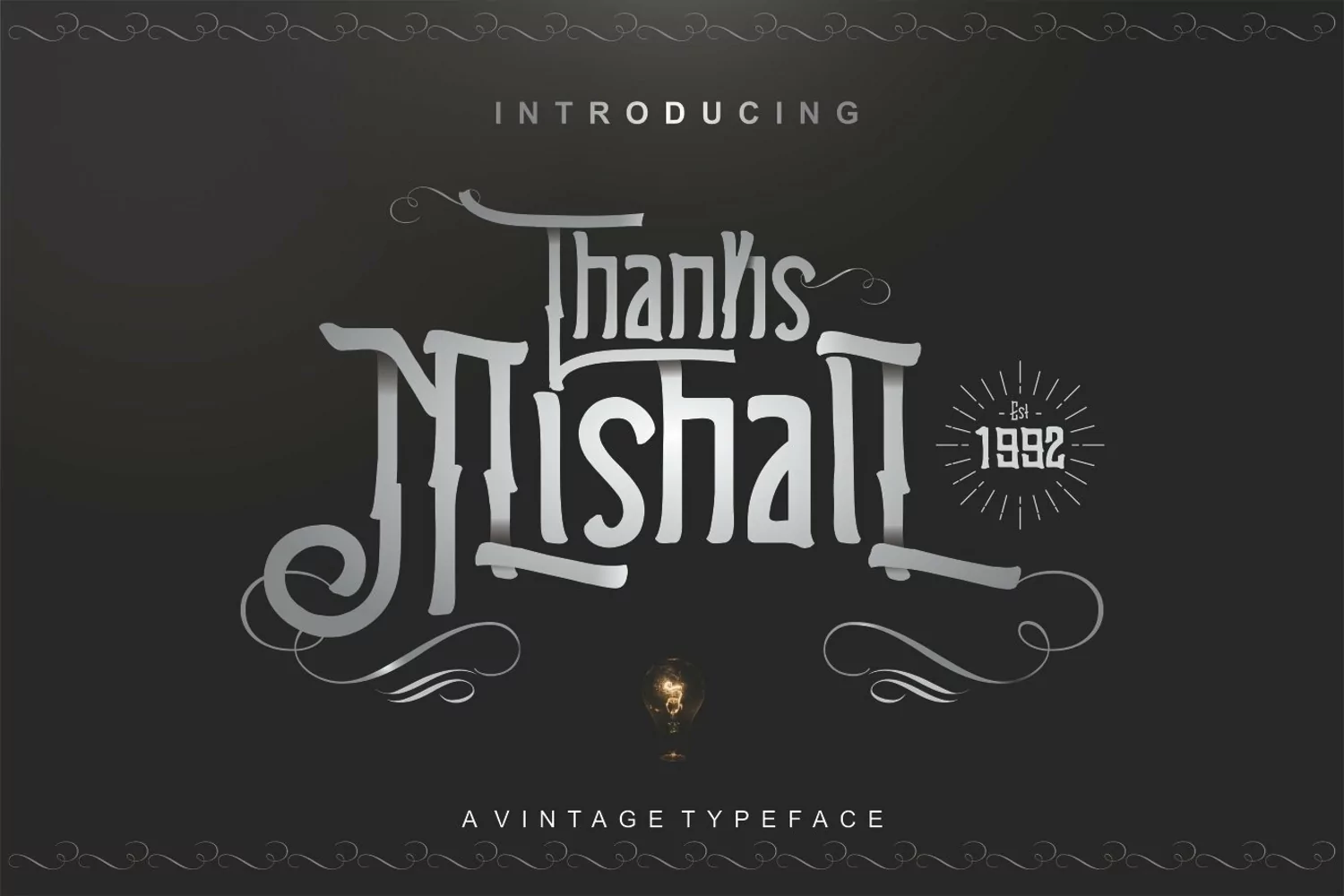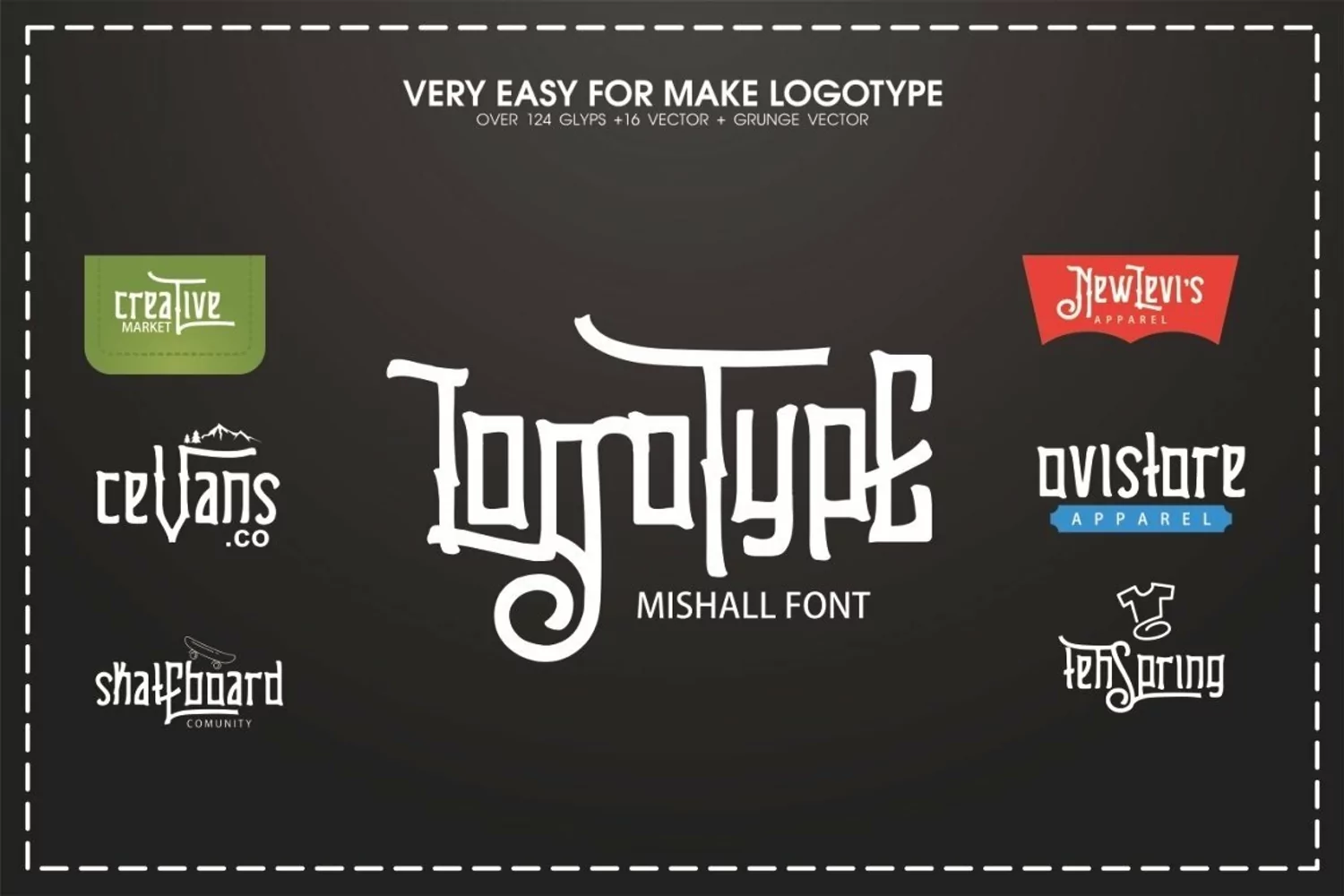
Mishall is a Font Bundles exclusive font. This vintage typeface is perfect for vintage themed designs, logo’s and headlines. It also goes very well with T Shirt designs and Apparel.